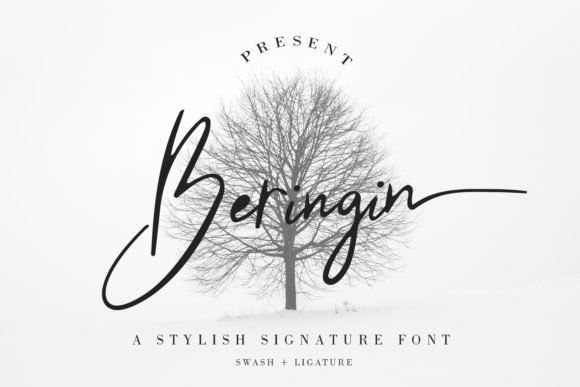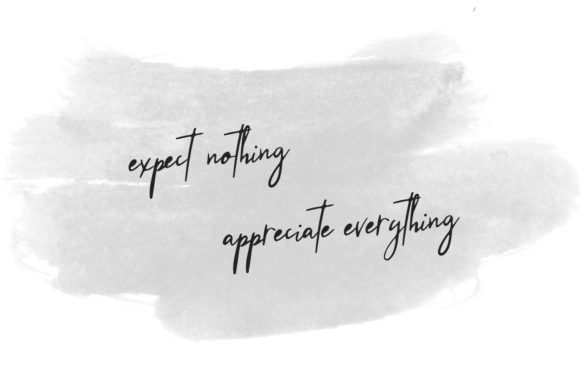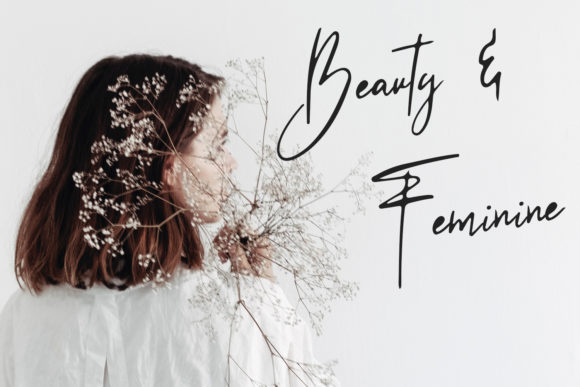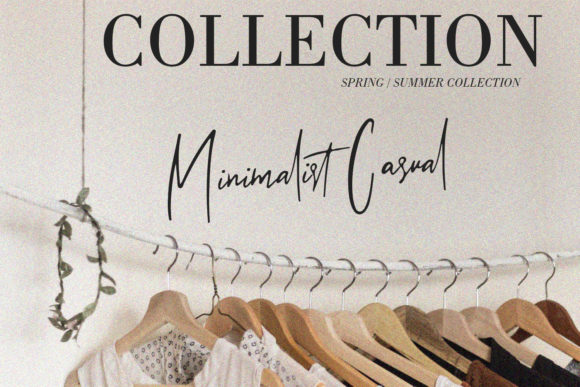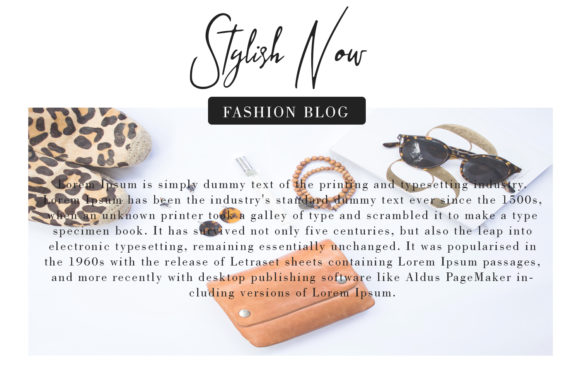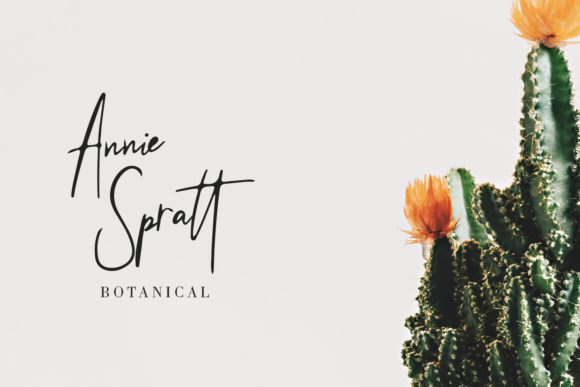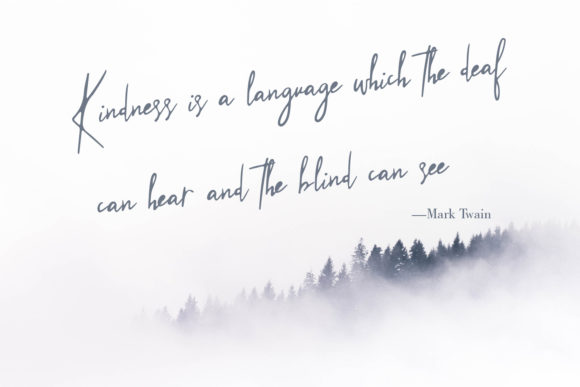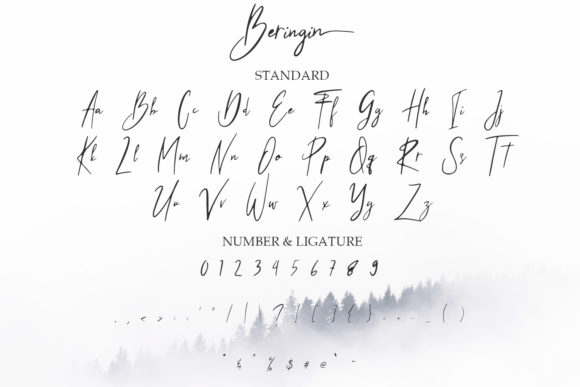
HomeScript FontsBeringin Font Script Fonts Beringin Font FacebookXPinterestWhatsApp Beringin Font Poster 2 Beringin Font Poster 3 Beringin Font Poster 4 Beringin Font Poster 5 Beringin Font Poster 6 Beringin Font Poster 7 Beringin Font Poster 8 About Beringin Font Beringin has an incredibly elegant style and features original handstrokes. DOWNLOAD NOW People also explored Jimmy Callight Font Chamille Script Font Gathering Font Bad Girl Crayon Hand Font Wild Crow Font Besties Font Monogram B | Monofont Caps B Font Basstian Font 304 0 TagsBeringin Font Previous articleDaimaru FontNext articleNavigate Font LEAVE A REPLY Cancel reply Comment: Please enter your comment! Name:* Please enter your name here Email:* You have entered an incorrect email address! Please enter your email address here Website: Save my name, email, and website in this browser for the next time I comment. Personal Use Free Wildwest Personal Use Free Read more about this font Written by Hand Personal Use Free Read more about this font Rina Personal Use Free Read more about this font Imelda Personal Use Free Read more about this font BLOG Transform Your Website: Elevate Your Typography with 7 Best Web Font Generators Are you ready to transform your website's typography from ordinary to extraordinary? Great! Today, we're diving into the world of web font generators, which... Free vs Paid Fonts: Why Investing in Premium Fonts Is Worth It How to Install and Use Fonts on Windows, macOS, and Web Projects The 10 Best Handwriting Fonts to Add Personality to Your Designs